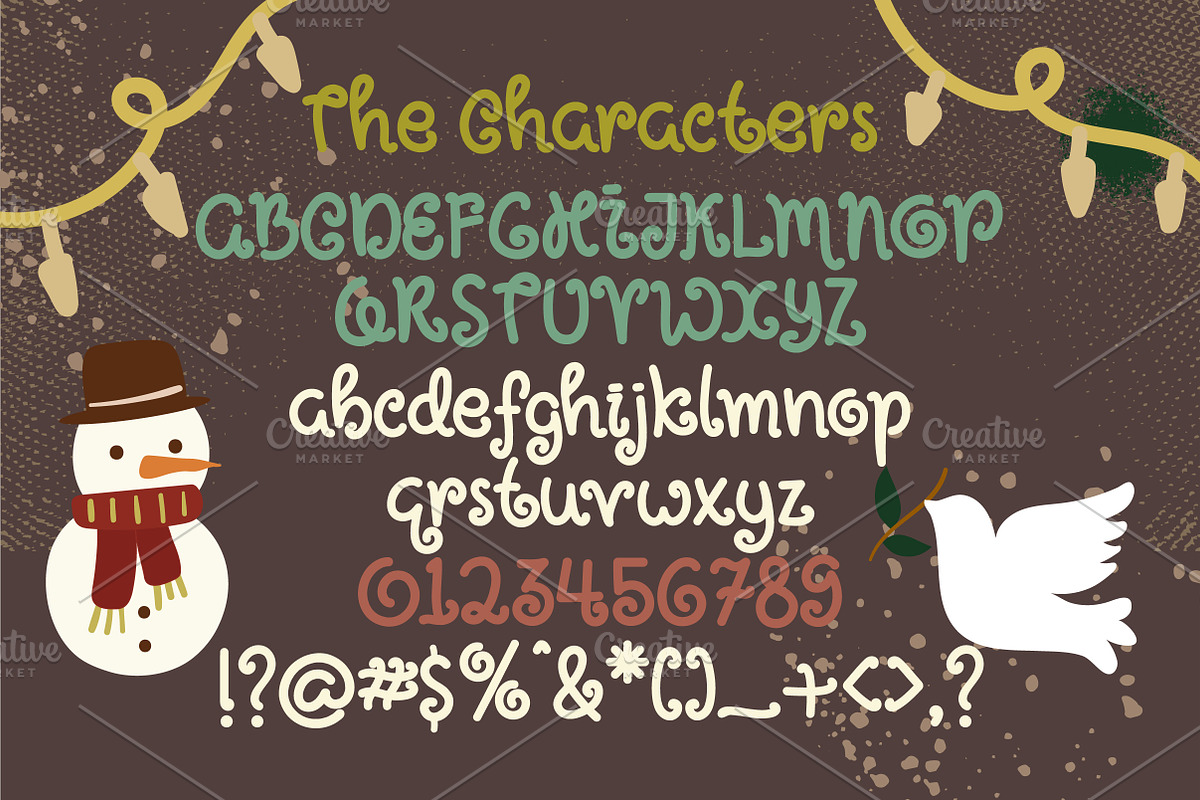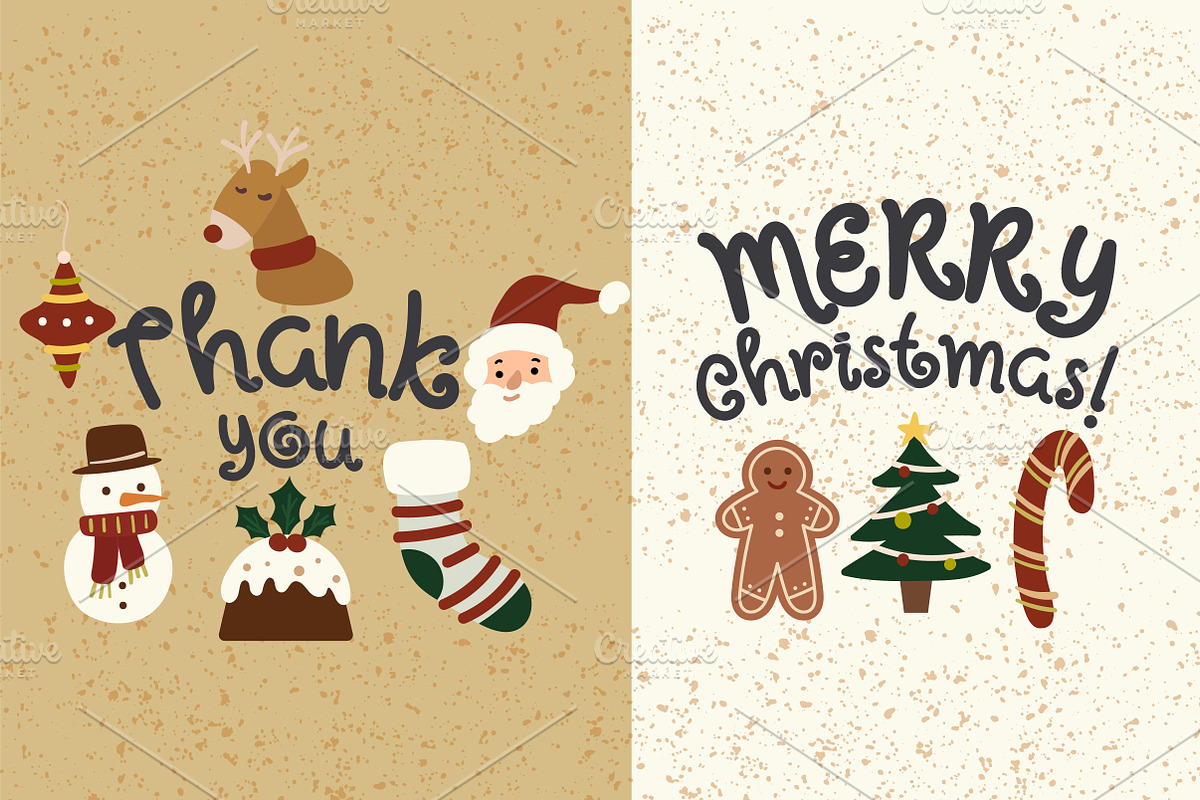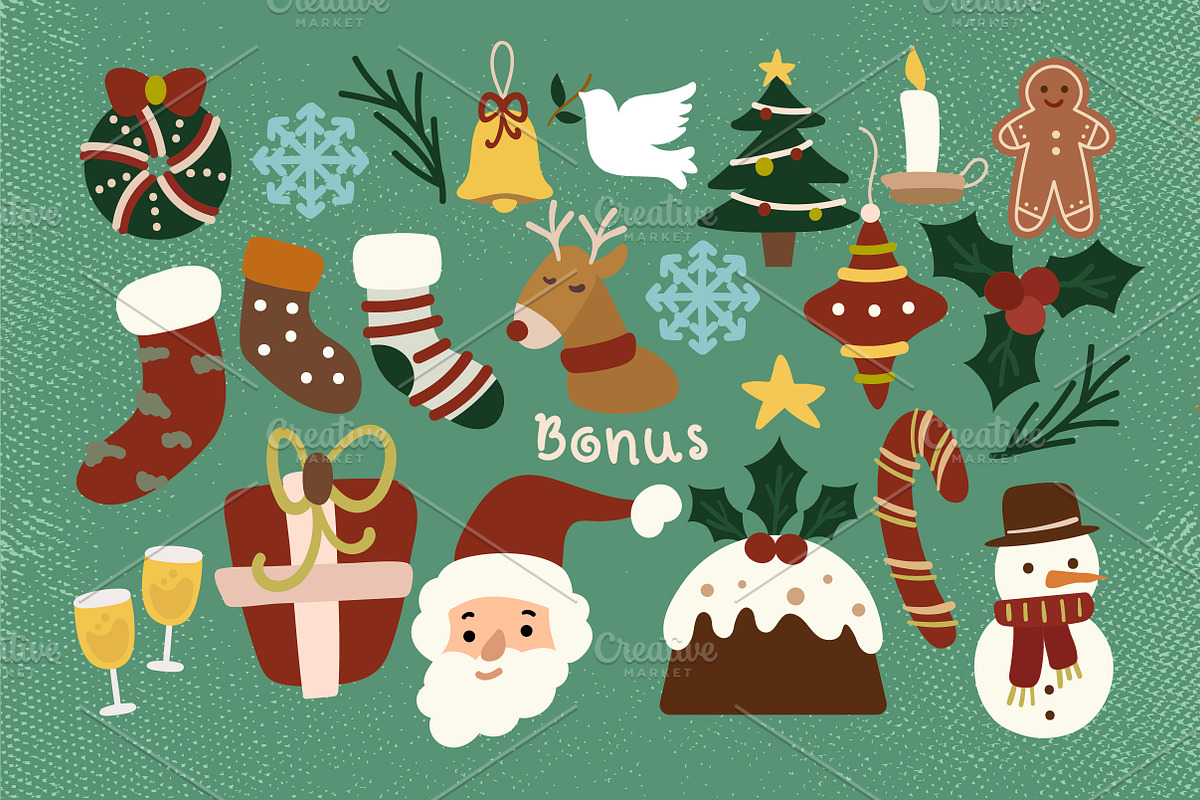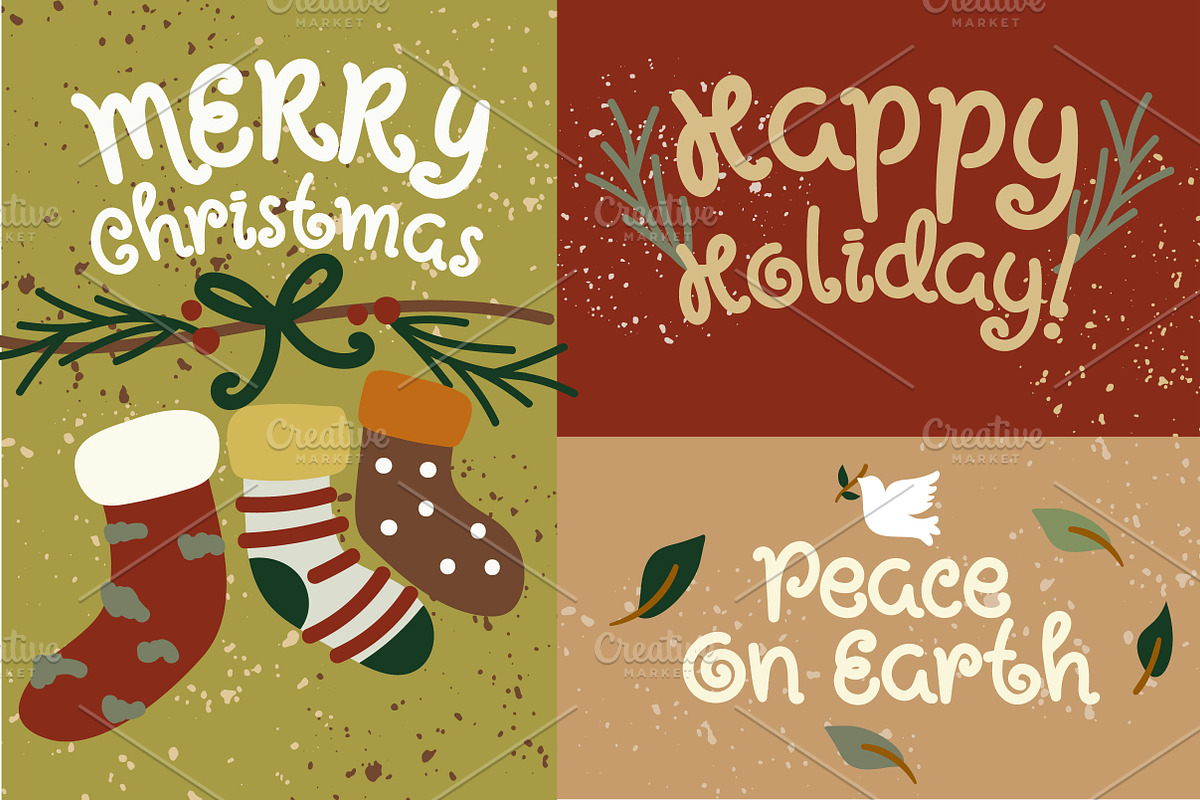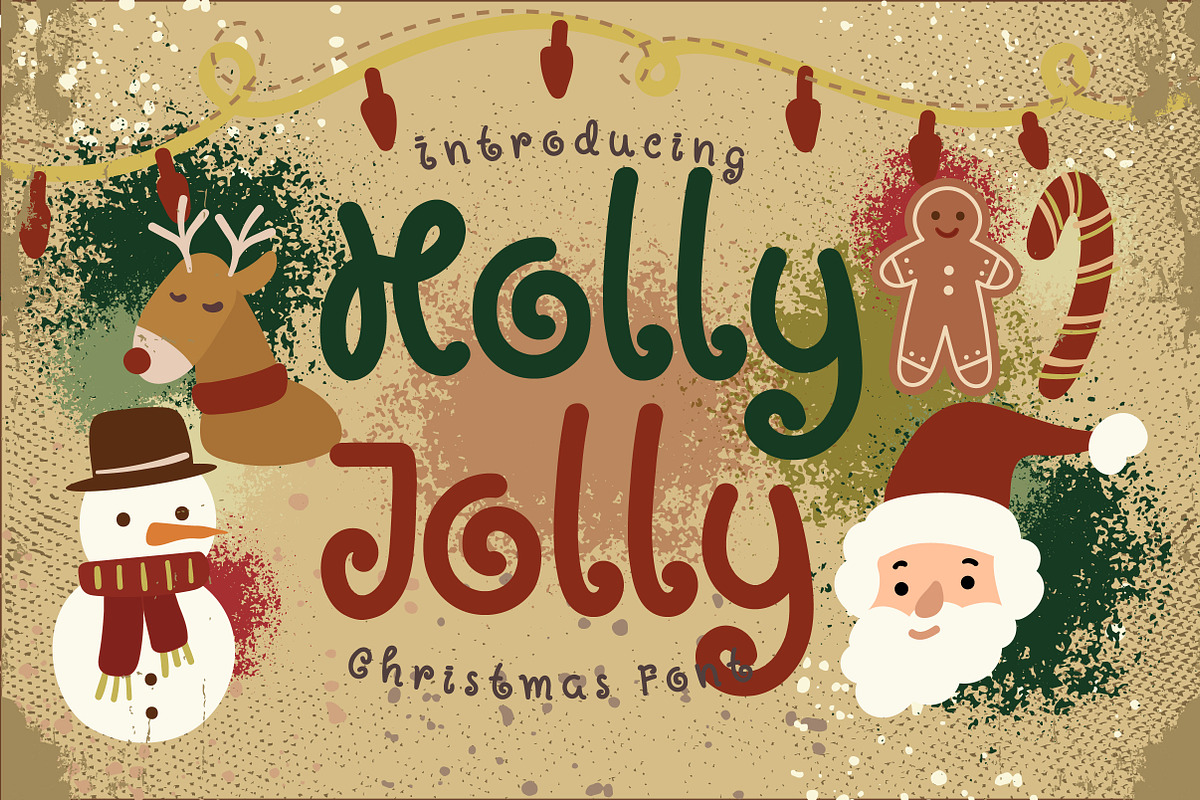
Holly Jolly Font
Hello! This is Holly Jolly a whimsical font perfect for christmas! You will also get 21 christmas cute icons as bonus!
Holly Jolly Font by caocastudio fits naturally into Branding, posters, packaging, typography.